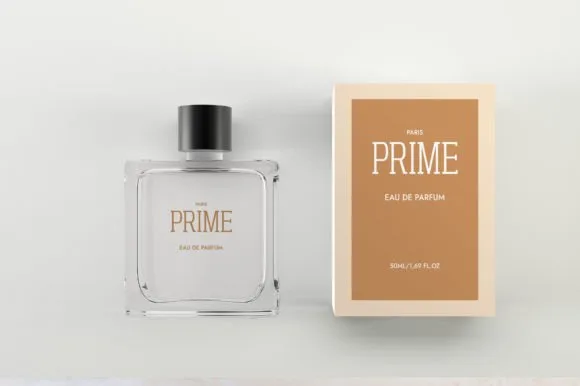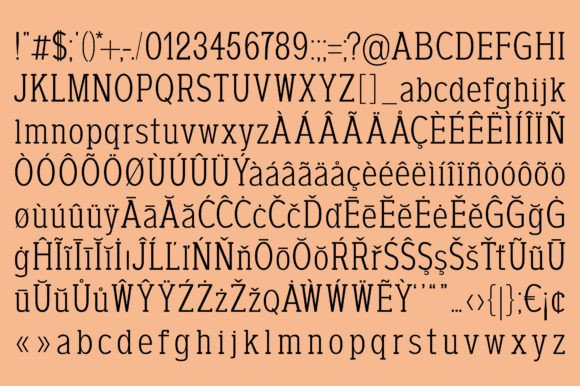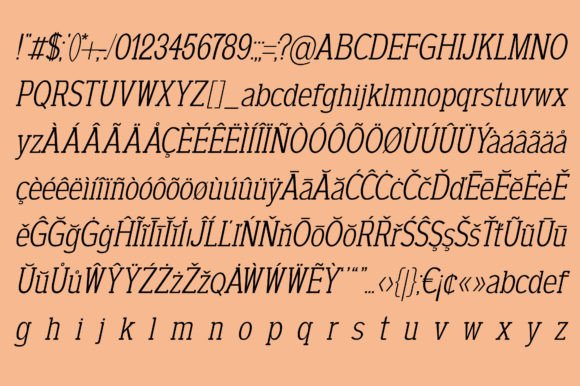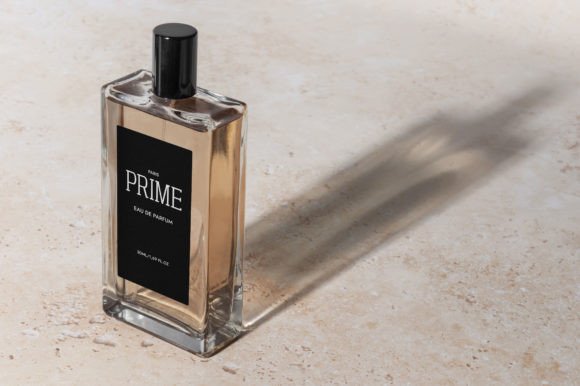
Prime Font
PRIME FONT SPECIMEN
Prime is a thin, elegant, and rounded slab serif typeface designed to be used as a display slab serif. It adapts wonderfully in contexts such as designing labels for perfumes, cosmetics, magazine covers, posters, manifests, flyers, social posts, and fashion.